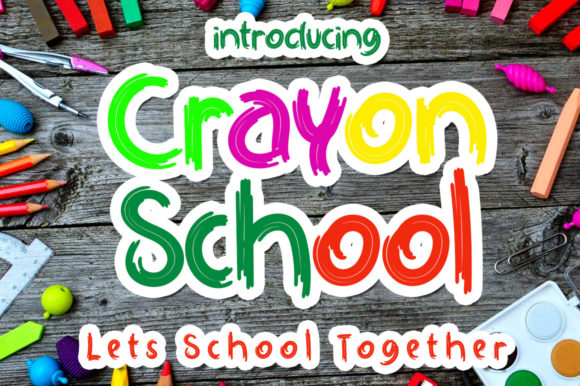
Indulge in the enchanting world of Crayon School Font, a captivating creation by Mr. Soon Design. This delightful font family dances across the digital canvas with a playful spirit, transforming your designs into whimsical masterpieces.
Step into a realm of heartwarming creativity as the Crayon School Font breathes life into your wedding videos. Its playful charm adds a touch of heartfelt joy to special moments, capturing the essence of your love story.
Each letter is a playful dance of imagination, evoking memories of childhood wonder and the simple pleasures of drawing with crayons. The Crayon School Font awakens nostalgia, making it the perfect choice for projects that aim to connect with your audience on an emotional level.
But beyond its whimsical beauty lies a hidden power – the ability to elevate your designs to new heights of creativity. Whether you're creating invitations, designing posters, or simply expressing yourself through art, the Crayon School Font will infuse your creations with an irresistible charm.